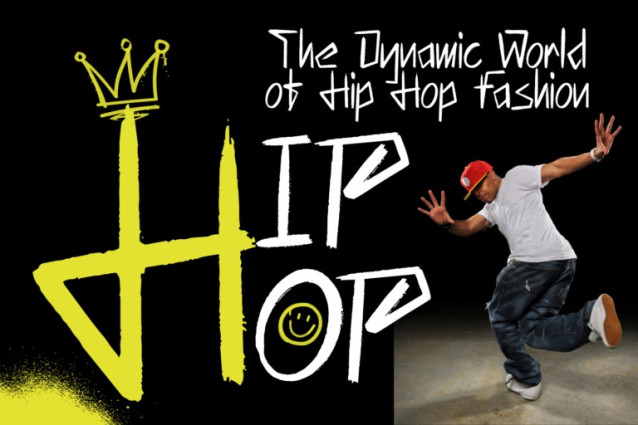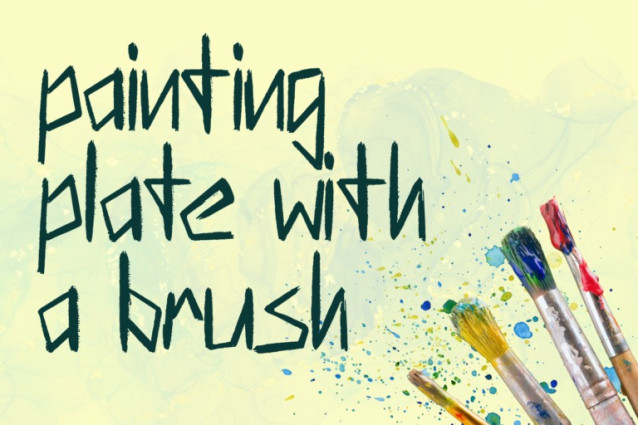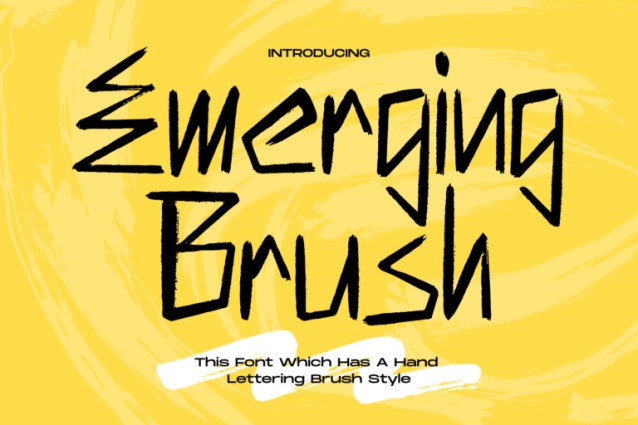
Emerging Brush Font
Emerging Brush Font – Raw & Expressive Brush Typeface, a fierce and spontaneous hand-lettered brush font that captures the essence of raw creativity. With sharp edges, bold strokes, and a perfectly imperfect look, this font brings rebellious energy to any design project.
Inspired by street art and DIY zine culture, Emerging Brush is perfect for grunge-style posters, album covers, skater brands, event promotions, or anything that dares to be different.